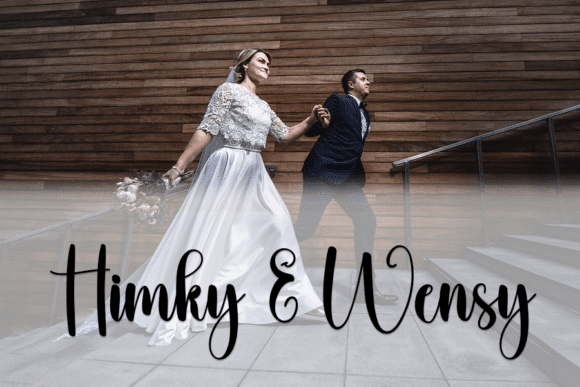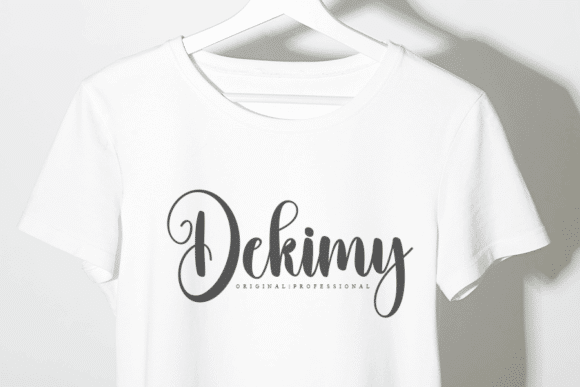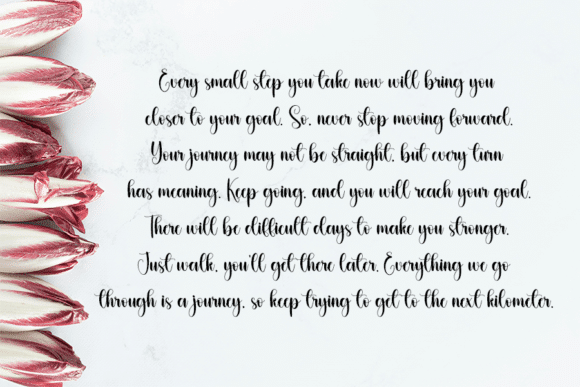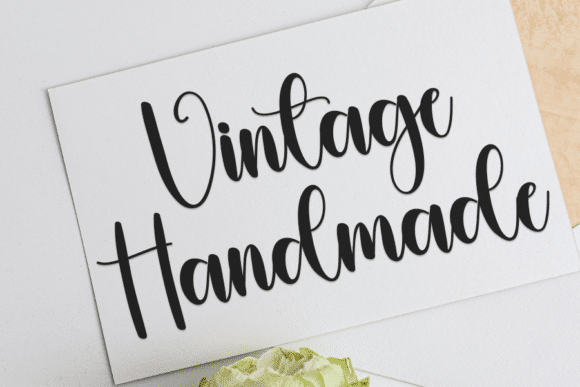
Disney Font
Disney is a delicate handwritten font carefully crafted for a cool and unique design. This font can be used to write letters, invitations, food products, titles, and more.